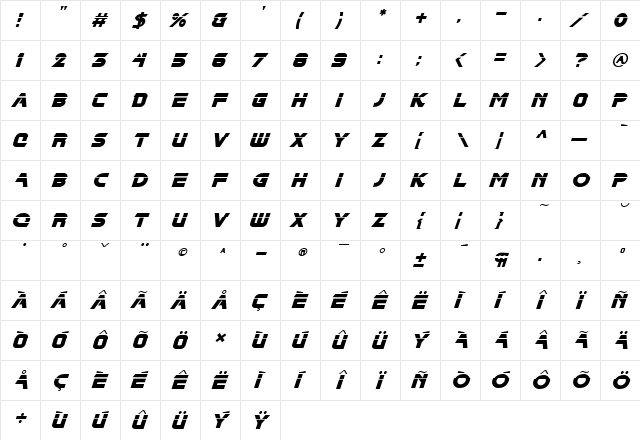
BladeCutThruOblique Regular
Design Context for BladeCutThruOblique Typeface
BladeCutThruOblique is a composed and adaptable typeface that performs quietly and consistently across a wide range of design contexts. Its italic angle brings a sense of urgency and motion to the letterforms.
Pro Tip: Try BladeCutThruOblique for annotation and caption copy alongside an upright companion — the contrast in angle creates a dynamic but ordered typographic system.